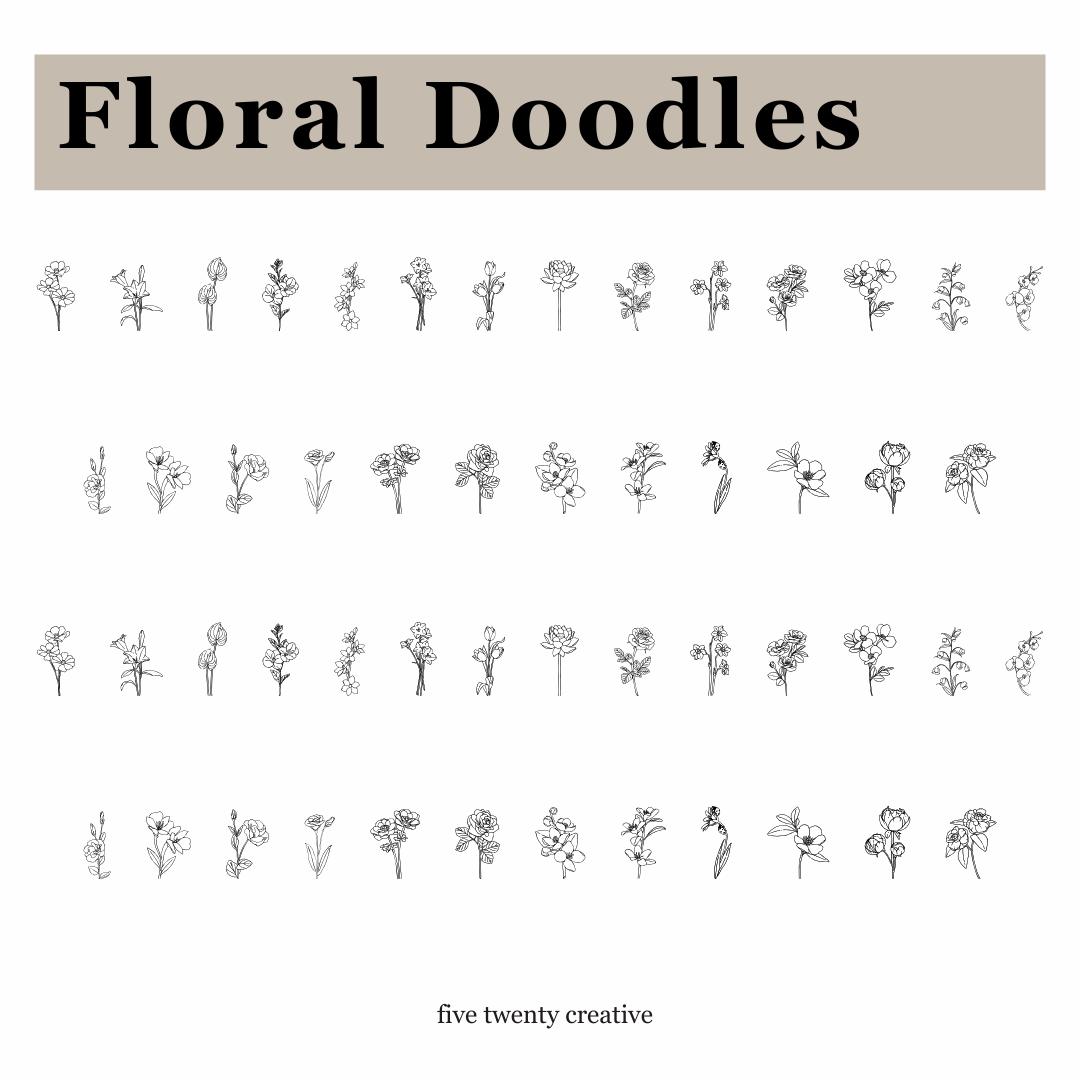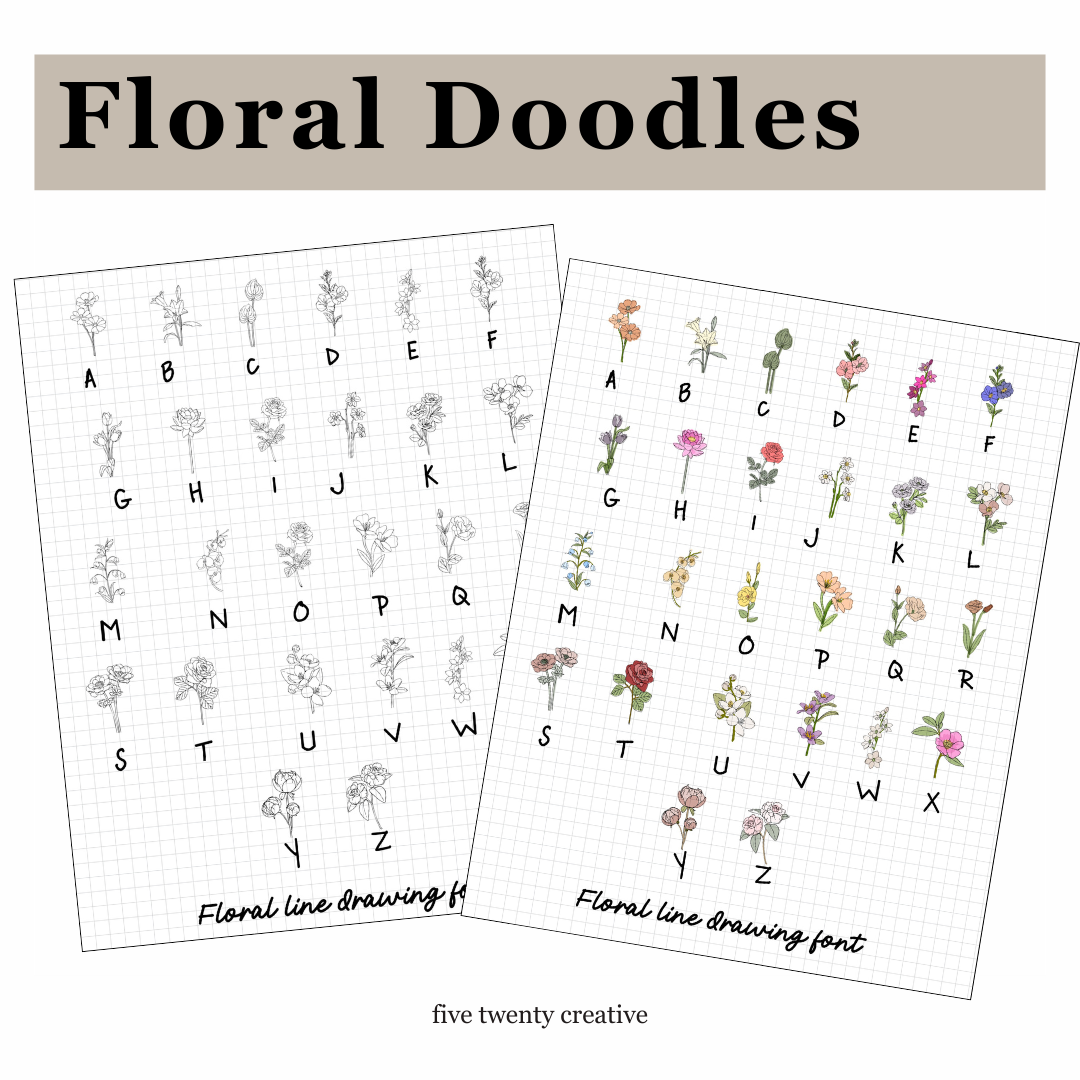
Color Changing Floral Doodle Font
Transform your digital planner pages with this whimsical floral doodle glyph font. Each character blooms into a pretty flowery doodle, adding a touch of beauty to your daily grind, plus the characters are color changeable to match any spread!